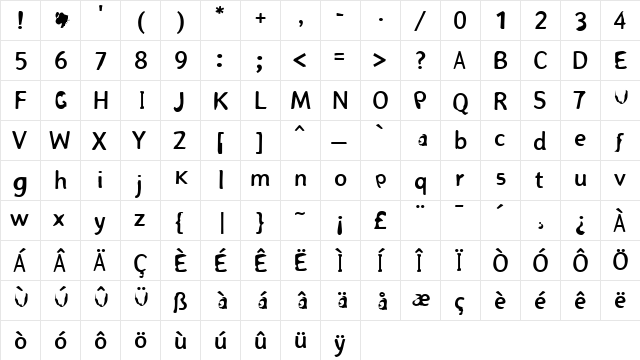
Rle Regular
Design Context for R��le Typeface
R��le offers clean, dependable letterforms without strong stylistic allegiance, making it a practical choice for designers who need flexibility.
Pro Tip: Use R��le in both headline and body roles to test its range before committing to a single application.